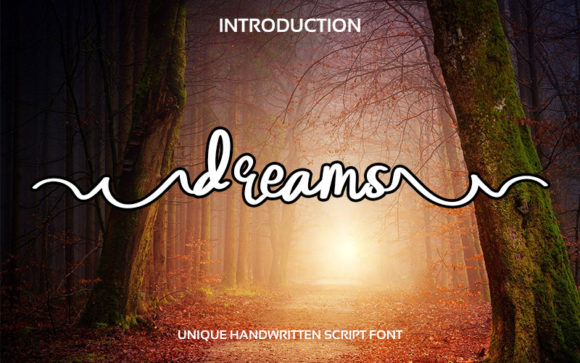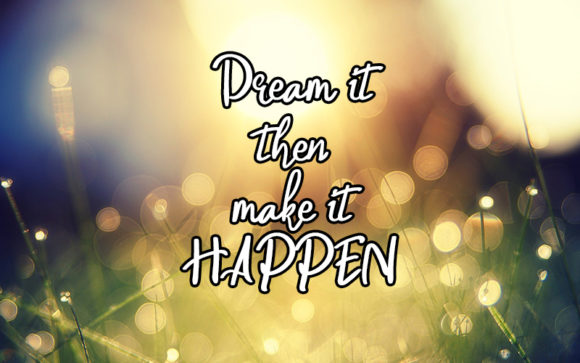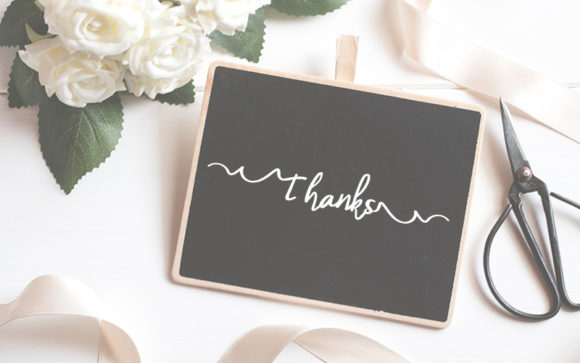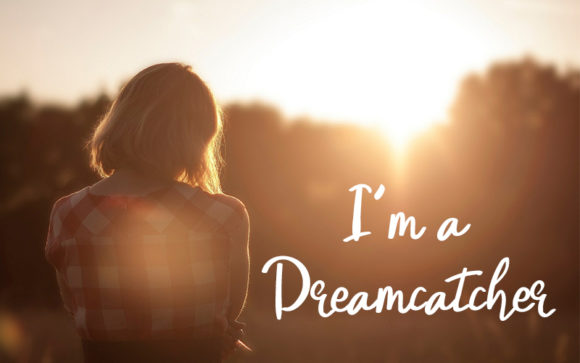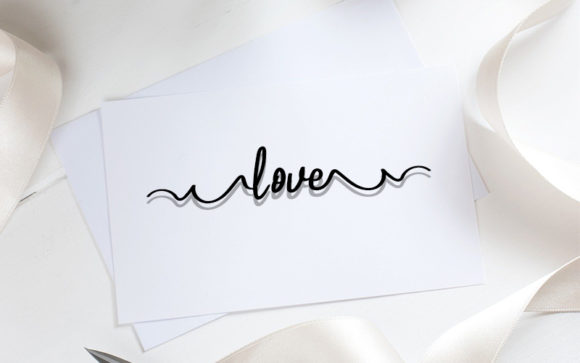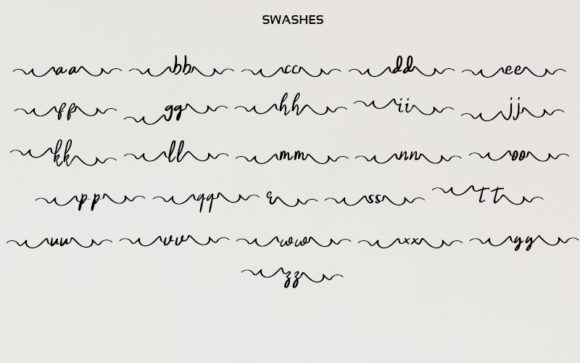
Dreams Font
About Dreams Font
Dreams is a cute and unique handwritten script font. This font is the perfect fit for all of your logos, branding, social media, and crafty DIY projects.